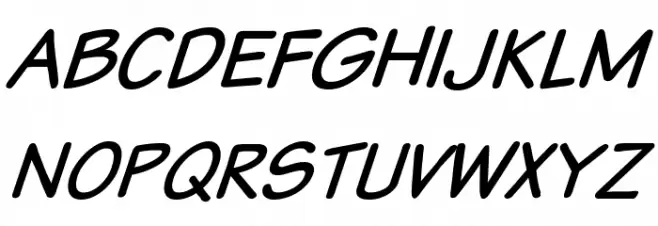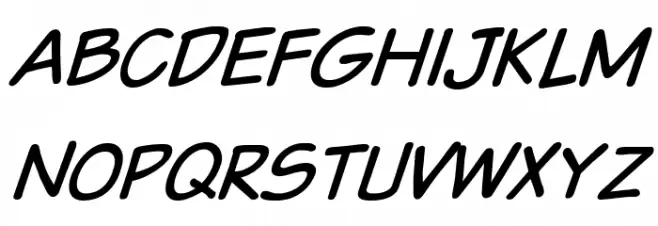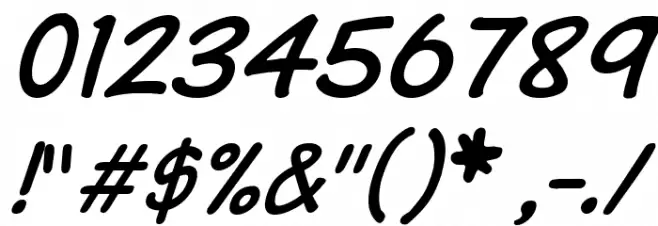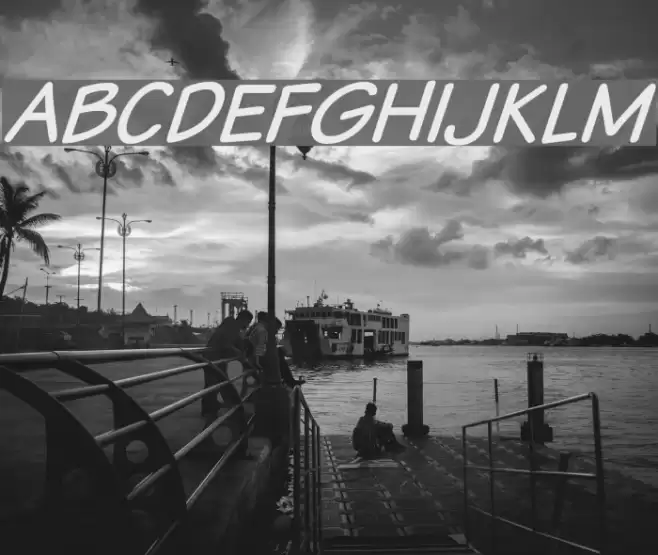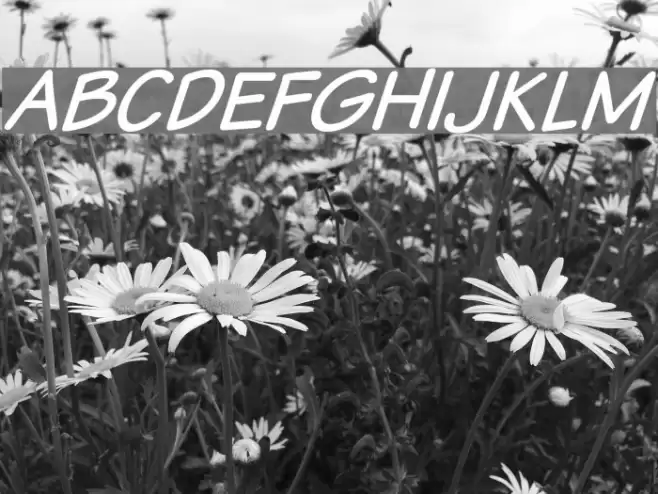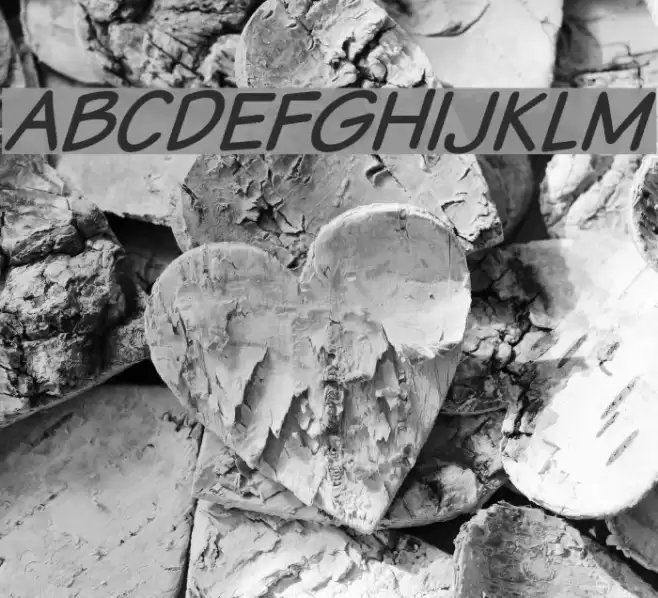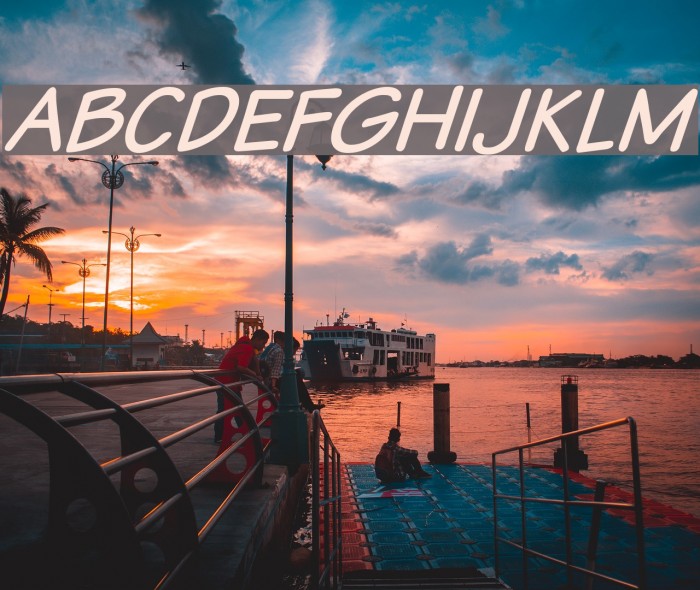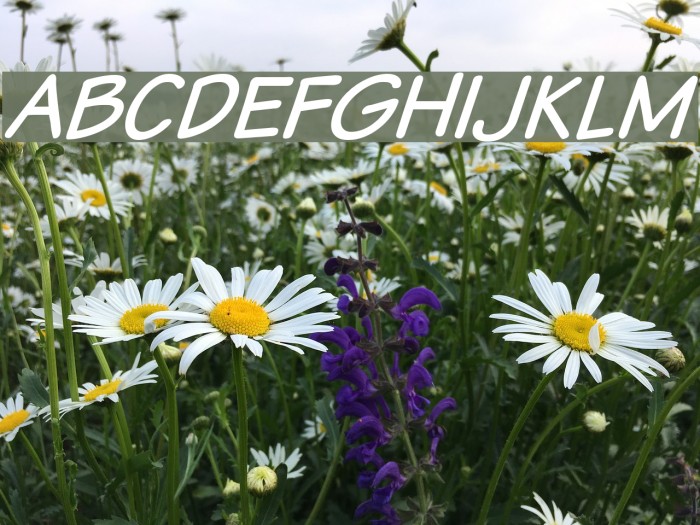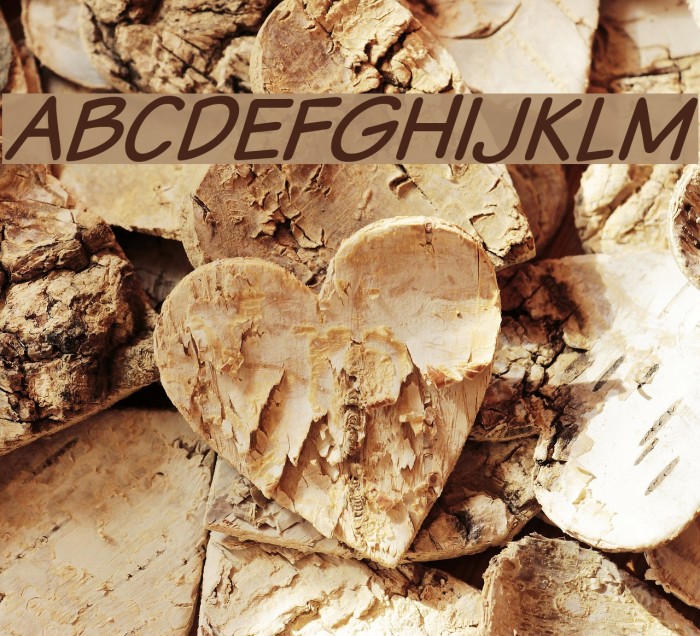
VTCSundaykomixcapsItalic
This font features a playful and dynamic style, characterized by its italicized, handwritten appearance. The letters have a casual, comic-like flair, with smooth, flowing curves and a slight slant to the right. The uppercase and lowercase letters maintain a consistent style, offering a cohesive look. The numerals and special characters are designed to match the overall aesthetic, contributing to a unified and lively presentation. This font is ideal for projects that require a fun and informal touch, such as comic books, children's materials, or playful branding.
A playful, italicized handwritten font with a comic-like style.
- Proposed Projects: Comic books, children's materials, playful branding, informal invitations.
- Overall Style: Decorative